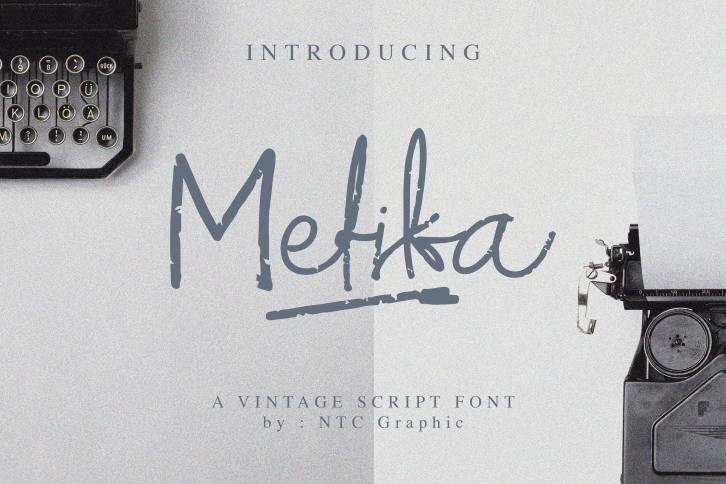
Mefika is a font with a retro vintage style script, with monoline characters that have rough scratches on the lines. This font is suitable for the needs of posters and flyers with vintage style, business cards with vintage styles, t-shirts, and as an element on vintage-style banner designs
Mefika Vintage Script with uppercase characters A-Z, lowercase characters a-z, punctuation, ligature, numerical and swashes
-Ligature
-SWASHES